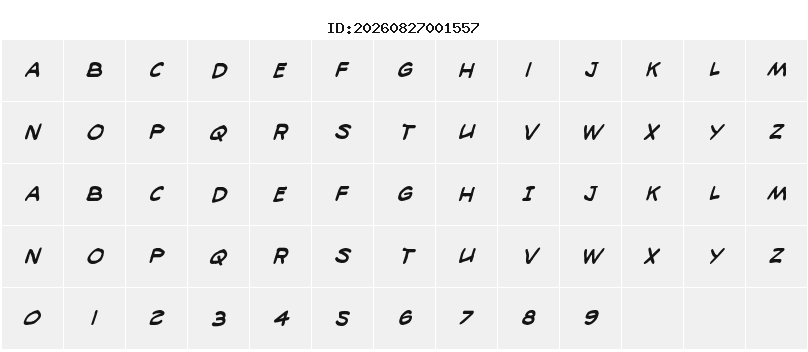
• Font Name: 98 Bottles of Beer Bold Condensed Italic
• Font Style: Bold Condensed Italic
• Full Font Name: 98 Bottles of Beer Bold Condensed Italic
About 98 Bottles of Beer Bold Condensed Italic.ttf
98 Bottles of Beer Bold Condensed Italic.ttf is a modern, elegant sans-serif font designed for ultimate readability and visual harmony. Perfect for branding, headlines, web design, and print materials.